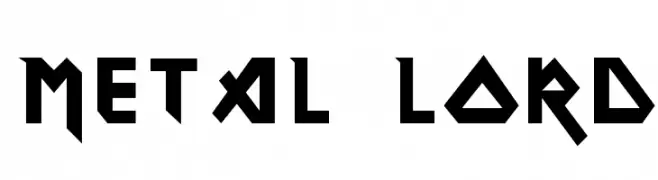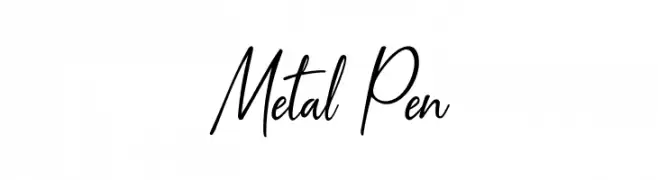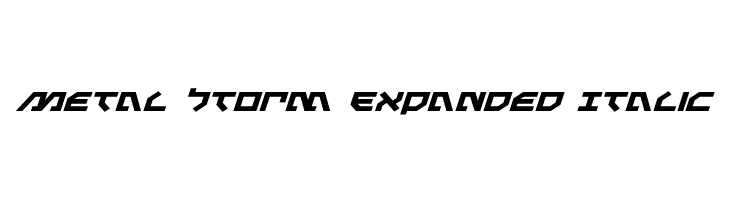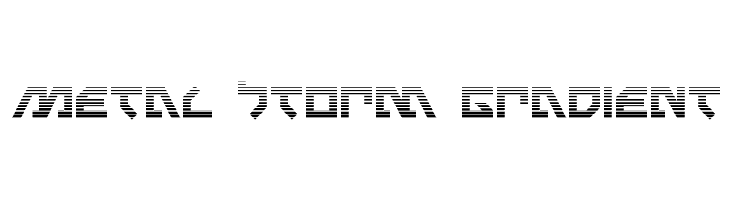
A bold, gothic font with sharp, thorn-like details and a macabre aesthetic.
A bold, edgy font with sharp, angular strokes and a distressed look.
A bold, geometric font with a futuristic, industrial design.
A dynamic, elegant cursive script with fluid, connected characters.
A bold, high-contrast serif font with geometric influences and sharp serifs.
A playful, modern font with continuous, flowing lines and a whimsical touch.